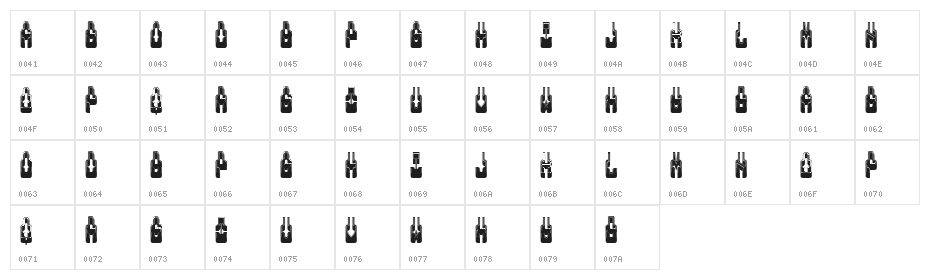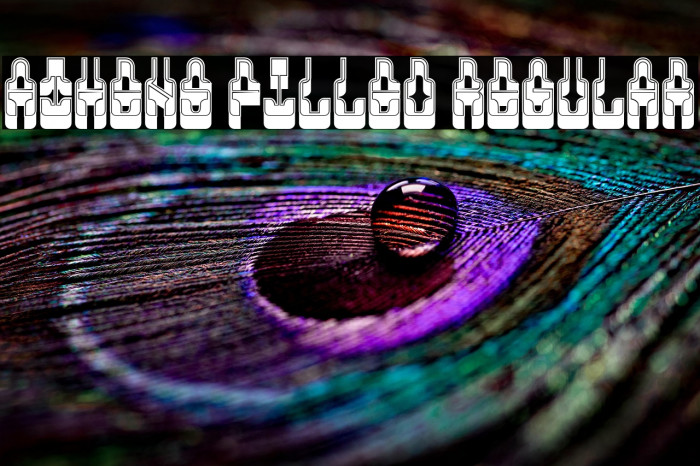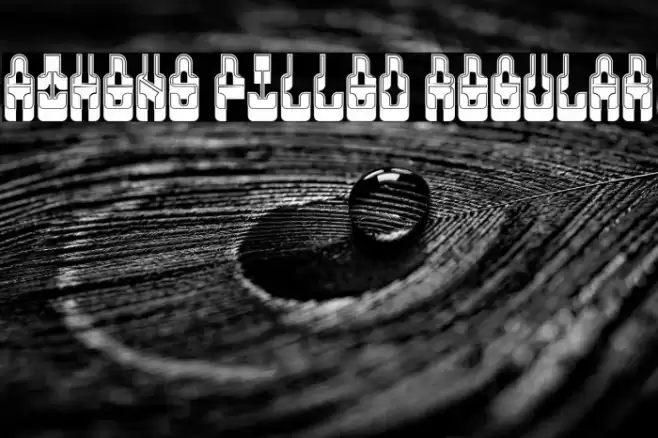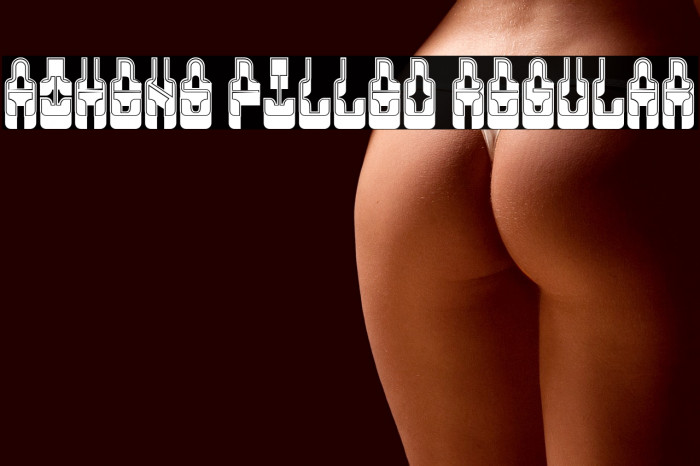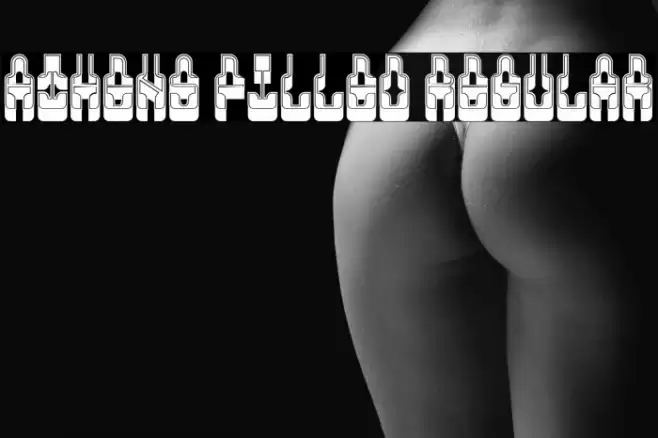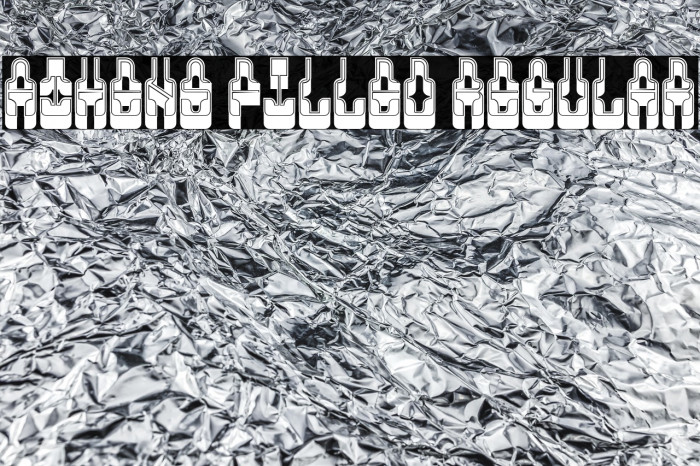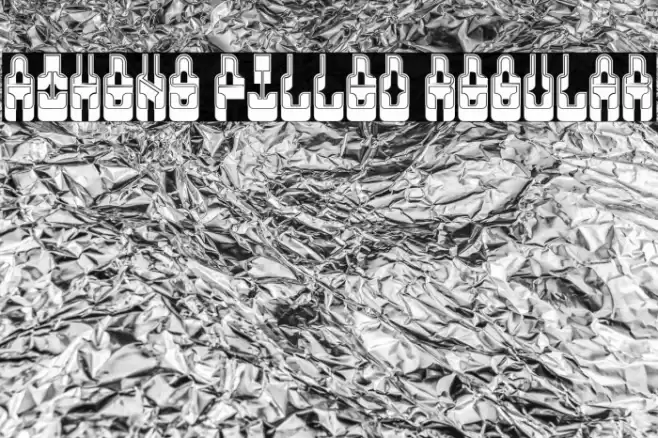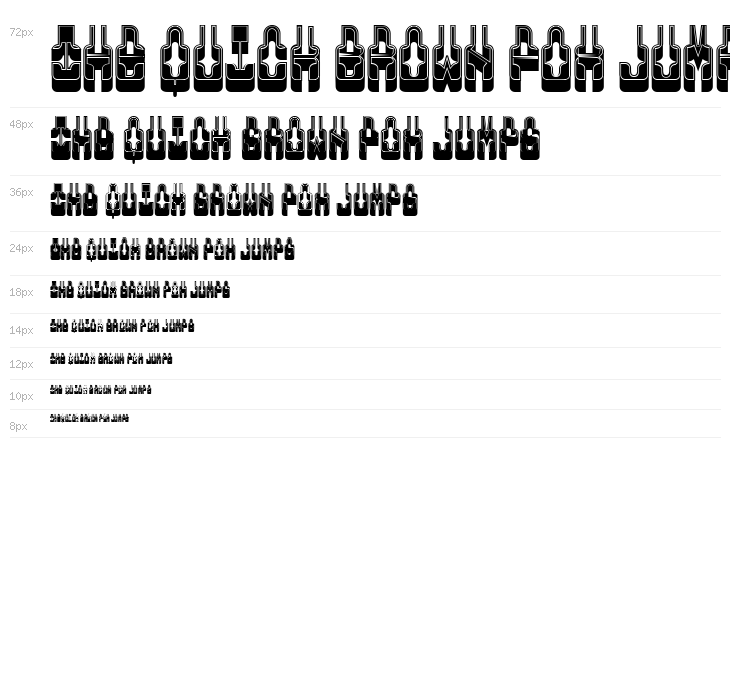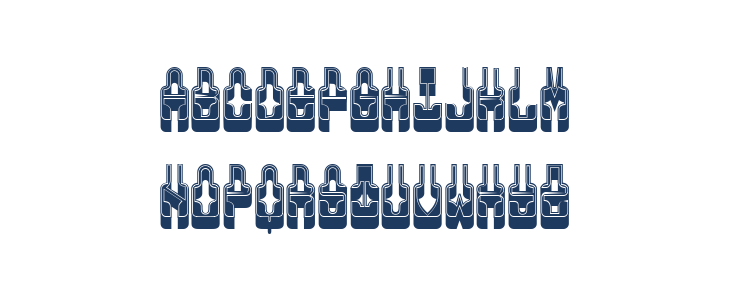
Athens Filled Regular Font
Athens Filled Regular Description
This font features a bold and striking design with a filled, block-like appearance. The characters are constructed with thick, uniform strokes that create a sense of solidity and strength. Each letter is enclosed within a distinct outline, adding depth and a three-dimensional effect. The geometric shapes and sharp angles give it a modern and futuristic feel, making it highly suitable for attention-grabbing headlines or logos. The consistent weight across all characters ensures a cohesive look, while the enclosed design adds a unique touch that sets it apart from traditional fonts.